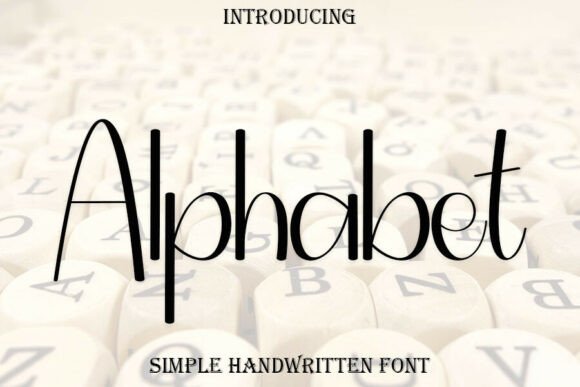
The Alphabet Font: A Friendly and Versatile Typeface for Creative Projects
I’ll never forget the time I was working on a children’s educational project, and my client asked me to create a custom font that would make their materials feel more approachable and engaging. I spent hours scouring the internet for the perfect typeface, but nothing seemed quite right. That was until I stumbled upon the Alphabet font. With its clean and simple handwritten aesthetic, it was love at first sight! ✨
In this article, I’ll share my experience with the Alphabet font, including what I love about it, some potential quirks to consider, and practical tips on how to use it in various design platforms. Whether you’re a designer, crafter, or creative hobbyist, you’ll find inspiration and guidance on how to make the most of this versatile typeface.
• ✅ Legibility: The Alphabet font is incredibly easy to read, making it perfect for both short headings and longer passages of text.
• ✅ Friendliness: The font’s handwritten aesthetic gives it a warm and welcoming feel that’s perfect for educational materials, personal blogs, and children’s projects.
• ✅ Versatility: The Alphabet font pairs well with a variety of design styles, from modern and geometric to cozy and handmade.
• ✅ Uniform strokes: The font’s consistent line widths and clear lines make it a joy to use for both digital and print projects.
While the Alphabet font is an excellent choice for many projects, there are a few things to keep in mind: 🤔
• ⚠️ Limited formal styles: The font’s casual, handwritten aesthetic may not be the best fit for formal or corporate designs.
• ⚠️ May not be suitable for very long texts: While the font is legible, it may become tiresome to read in very long passages.
The Alphabet font was inspired by the everyday penmanship of a thin felt-tip or ball-point pen. Imagine a child’s notebook or a casual letter to a friend – that’s the aesthetic this font aims to capture. The designer sought to create a typeface that felt approachable, friendly, and easy to read, while still maintaining a touch of personality.
A: The Alphabet font is perfect for educational materials, personal blogs, children’s projects, and any design that requires a friendly, approachable feel.
Q: How does the Alphabet font compare to other handwritten fonts?
A: The Alphabet font stands out for its clean and simple aesthetic, making it more legible than many other handwritten fonts. Its uniform strokes and clear lines also give it a more polished feel.
Q: Can I use the Alphabet font in digital and print projects?
A: Absolutely! The Alphabet font is versatile and works well in both digital and print applications. Its clear lines and consistent line widths make it suitable for a wide range of uses.